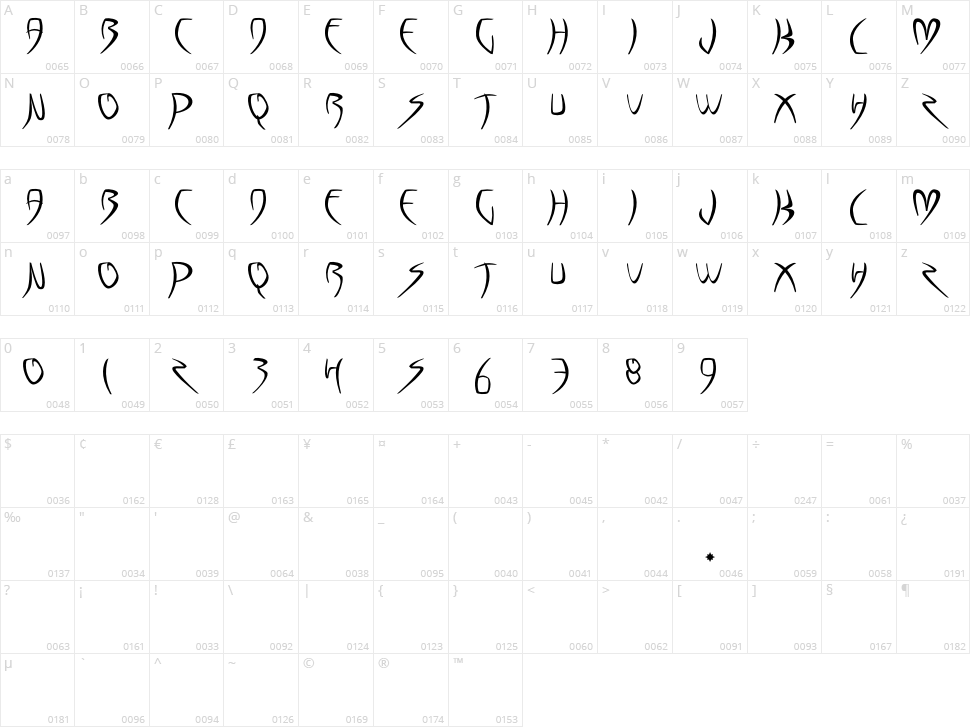
The Magnificent Girl Signature Two
With 8 fonts in its total, 3 a weight family and 3 deriving an italic version of this family, two of the eight do not suit the other 6 for not being the same category but they belong to the same family. The six categorizes in art deco style, and the other two in the abstract and handwritten.